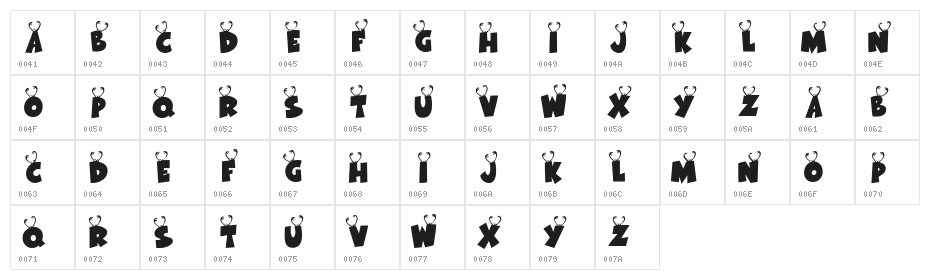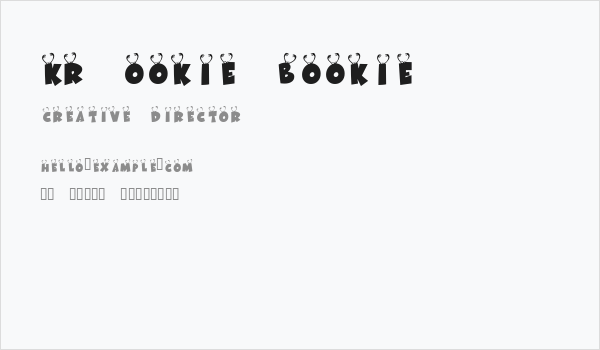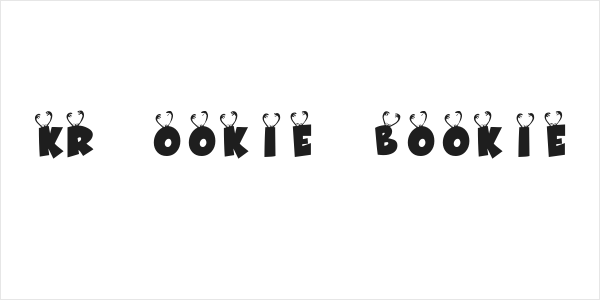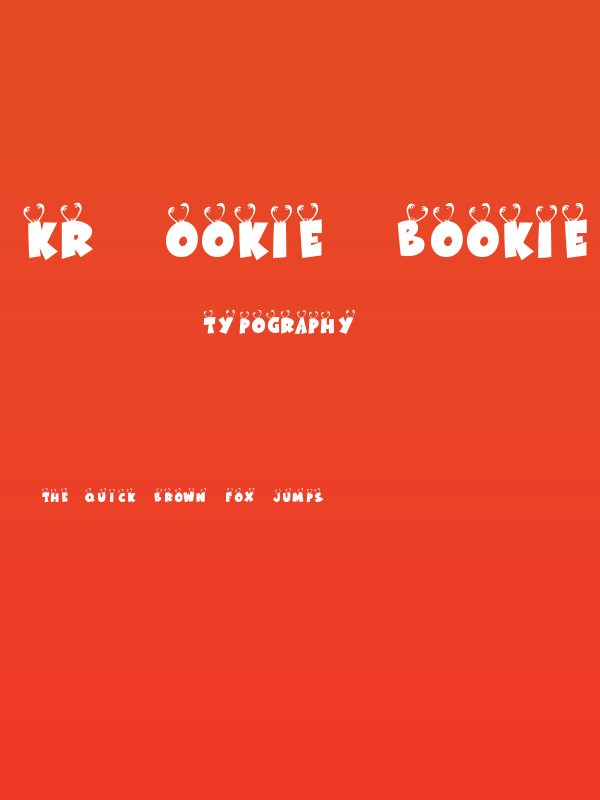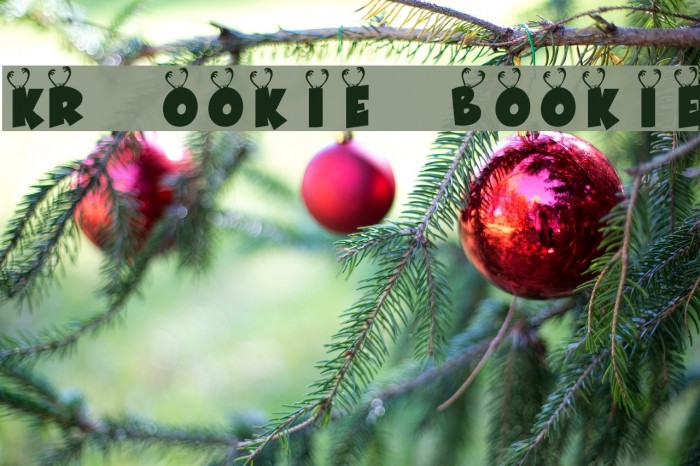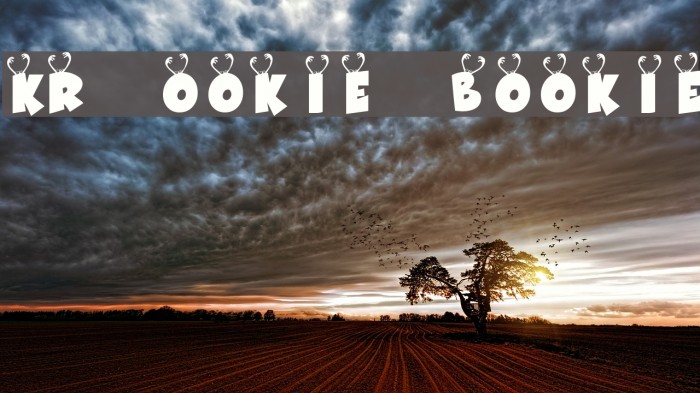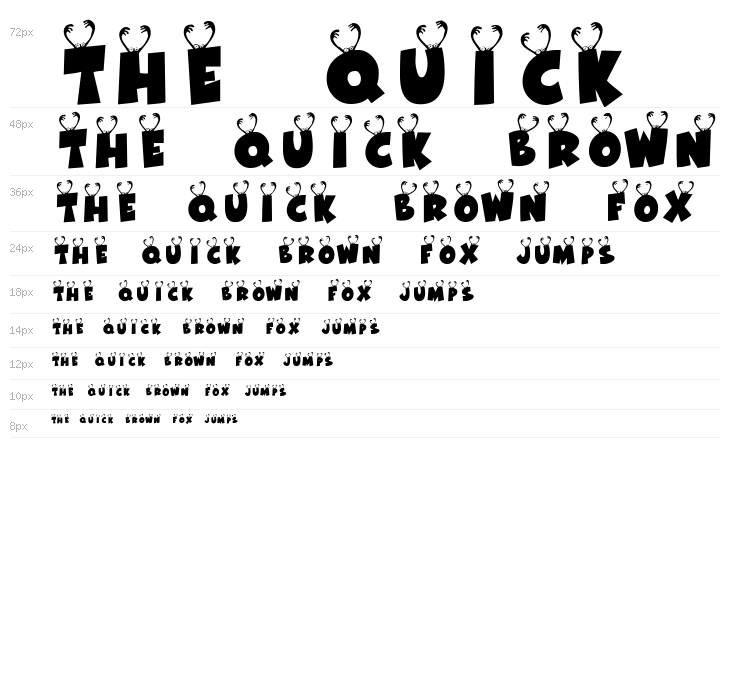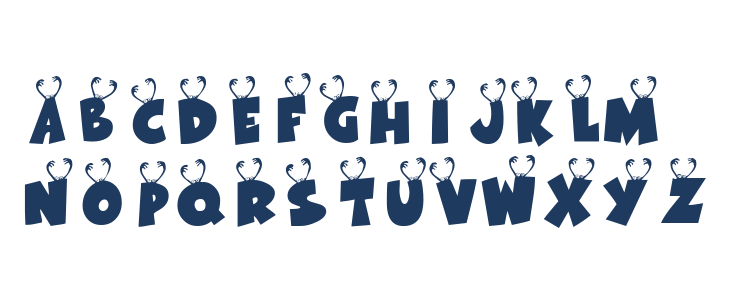
KR Ookie Bookie Font
KR Ookie Bookie Description
This playful and whimsical font features bold, chunky letters with unique decorative elements resembling antlers or horns on top of each character. The design is highly stylized, with each letter exhibiting a slightly tilted or uneven appearance, adding to its quirky charm. The font's boldness and distinctiveness make it stand out, while the decorative elements give it a fun and festive feel. It's ideal for projects that require a touch of humor or a playful aesthetic, such as children's books, party invitations, or holiday-themed designs. The font's exaggerated features and high contrast between the thick strokes and the decorative elements ensure it captures attention and adds a lively character to any text.
| Use Case | Headlines, Logos, Decorative text |
| Proposed Projects | Children's books, party invitations, holiday-themed designs, playful branding. |